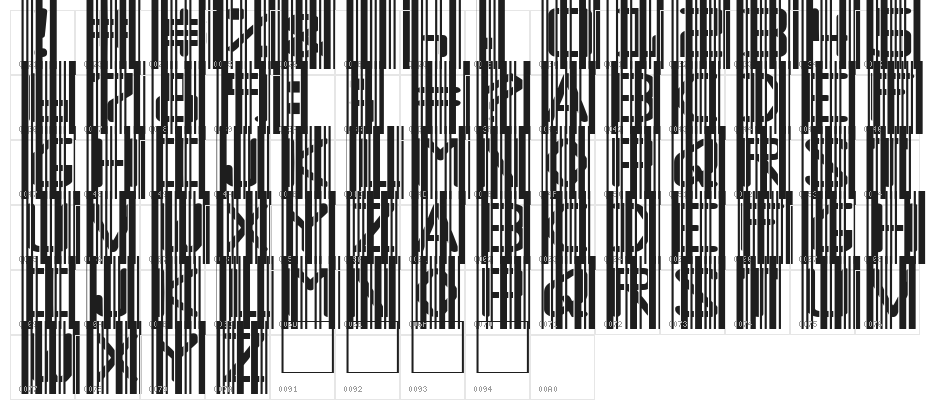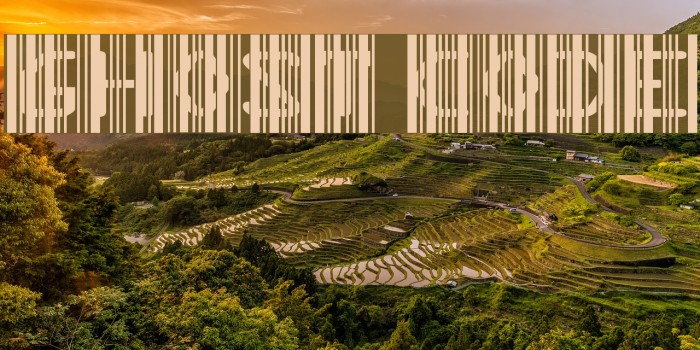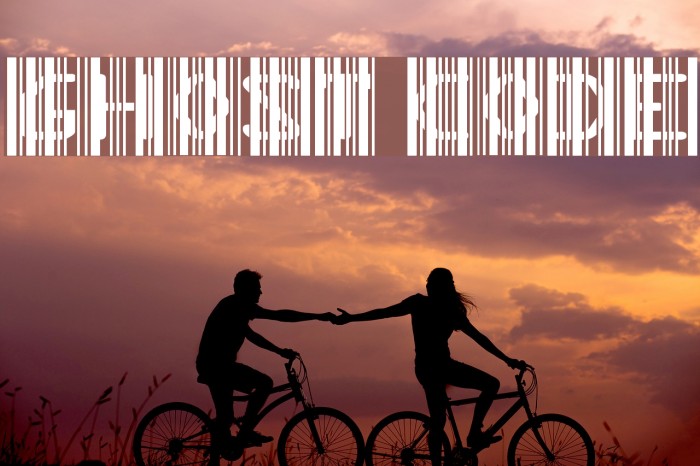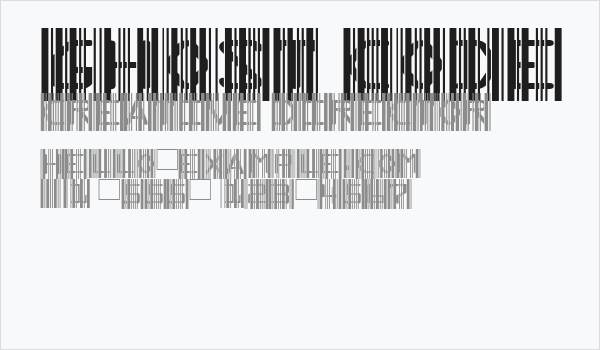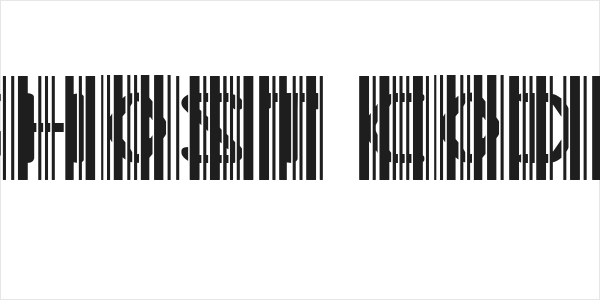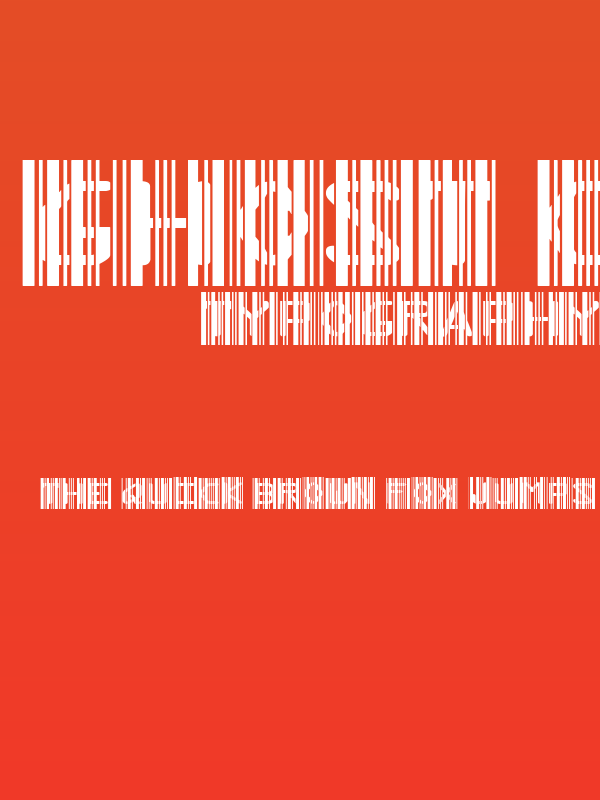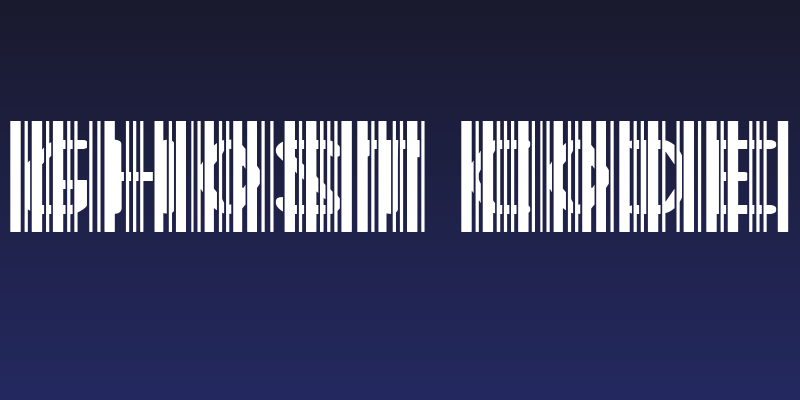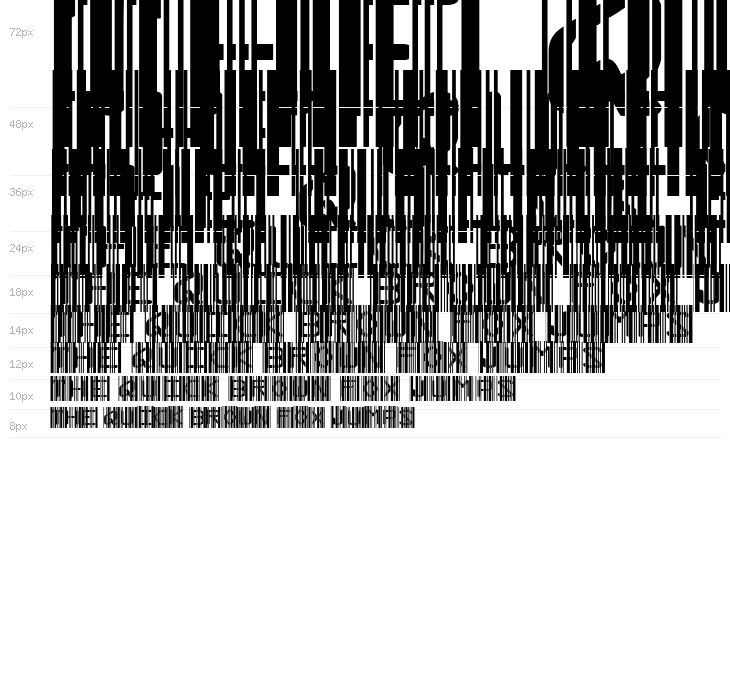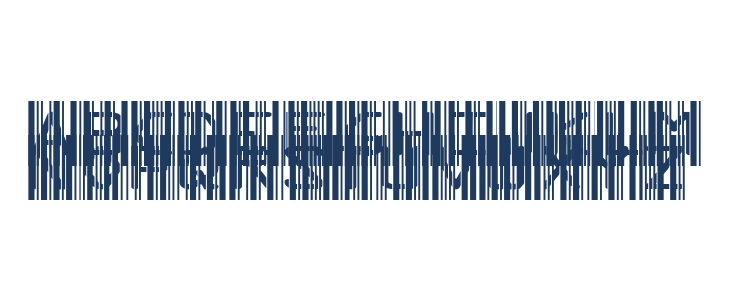
Ghost Code Font
✎ Distorted Eroded
Ghost Code Description
This design features a highly abstract and artistic representation of characters, resembling a barcode or glitch art. The characters are composed of vertical lines and fragmented shapes, creating a sense of digital distortion. This style is visually striking and unconventional, making it suitable for projects that aim to convey a sense of modernity, technology, or avant-garde aesthetics. The fragmented appearance of the characters suggests a theme of deconstruction or disruption, which could be appealing in contexts that embrace innovation or challenge traditional norms. The overall effect is one of complexity and intrigue, inviting viewers to engage with the design on a deeper level.
| Width | Condensed |
| Use Case | Logos, Posters, Digital Art |
| Proposed Projects | Ideal for digital art installations, tech-themed branding, futuristic event posters, or album covers. |